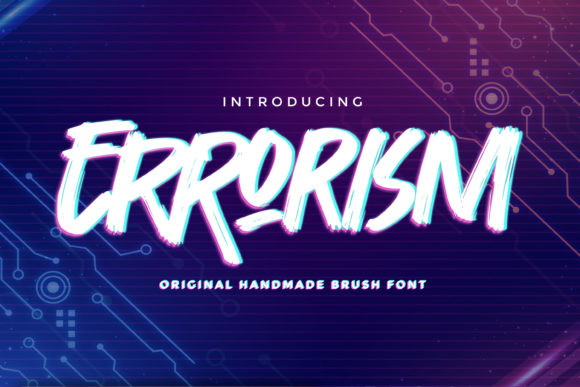
Errorism: A Handmade Brush Font for Crafters
As a maker who spends hours perfecting the cut of a vinyl decal or adjusting the kerning on a wedding invitation, I know that the right typeface can make or break a product. We are not just selling paper, wood, or fabric; we are selling an aesthetic and a feeling. This is why discovering Errorism felt like finding a missing piece in my design toolkit. It is an original handmade brush font, written casually and quickly, which gives it rough, authentic, and strong characters with a more natural look. For those of us creating physical goods, this authenticity is gold.
The Charm of Imperfection in Modern Typography
In a world saturated with perfectly geometric digital fonts, there is a growing demand for type that feels human. Errorism captures the energy of a marker hitting paper in real time. It does not try to be flawless. Instead, it embraces the slight variations in stroke width and edge texture that occur when you write by hand. This visual personality makes it an ideal choice for brands that want to appear approachable, organic, and artisanal.
When you use a script handwritten style like Errorism, you are immediately signaling to your customer that care and creativity went into the product. It bridges the gap between professional logo design and personal note-taking. Whether you are designing for a rustic farmhouse vibe or a modern minimalist boutique, the raw energy of this display font adds a layer of warmth that sterile computer-generated text simply cannot replicate.
Practical Applications for Handmade Products
The versatility of Errorism shines when applied to tangible items. Because the characters are strong and distinct, they hold up well in various manufacturing processes. Here is how I integrate this creative font into my shop’s offerings:
- Product Labels and Packaging: For candle makers, soap artisans, and bakery owners, Errorism is perfect for short labels. The thick strokes ensure readability even when printed small on kraft paper or clear vinyl. It gives artisanal goods a premium, small-batch feel.
- Wedding Stationery and Invitations: Couples often seek a balance between elegance and ease. Using Errorism for the names on a wedding welcome board or save-the-date cards adds a casual, celebratory tone. It pairs beautifully with formal details, softening the overall look.
- Home Decor and Signs: If you use a Cricut or Silhouette machine to cut wood or acrylic signs, this font is a dream. The connected letters and natural flow reduce the need for excessive weeding while maintaining a cohesive look. It works exceptionally well for phrases like "Welcome," "Gather," or family names.
- Apparel and Tote Bags: When screen printing or using heat transfer vinyl (HTV), the bold nature of Errorism ensures durability. It looks fantastic on tote bags, t-shirts, and aprons, especially for businesses that want to highlight a slogan or a brand name prominently.
Readability and Technical Considerations
While the rough edges of Errorism are its biggest strength, they require thoughtful application. As a handwritten font, it is best suited for short phrases, titles, and decorative wording rather than long paragraphs of body text. The casual writing style means that letter spacing can vary, so always check your kerning before finalizing a design.
For those using cutting machines, preview your design at actual size. Because the font has a natural, quick-written look, some thinner connections between letters might need slight adjustments in your software to ensure they cut cleanly without breaking. However, the overall strength of the characters usually minimizes this issue. When creating digital printables or SVG-style designs, ensure you are using high-resolution files to preserve the textured edges that give the font its character.
Strategic Font Pairing for Brand Identity
To maximize the impact of Errorism, pairing it with complementary typefaces is essential. Since Errorism is expressive and busy, it needs a calm partner. I frequently pair it with a clean sans serif font for product descriptions or secondary information. This contrast creates a hierarchy that guides the customer’s eye: the script draws attention, and the sans serif provides clarity.
Alternatively, for a more vintage or editorial look, you can pair this premium font with a traditional serif font. This combination works well for book covers, magazine-style layouts, or high-end boutique tags. The key is to let Errorism take the spotlight as the primary voice of your brand identity, while the supporting font handles the functional communication. Avoid pairing it with other decorative or script fonts, as this can create visual clutter and reduce readability.
Enhancing Perceived Value and Customer Connection
Using a distinctive typeface like Errorism affects more than just aesthetics; it influences perceived quality. Customers often associate handmade, imperfect typography with higher value and exclusivity. It suggests that the product was crafted with intention, not mass-produced. This emotional appeal is crucial for standing out in crowded marketplaces like Etsy or local craft fairs.
Incorporating Errorism into your creative process is more than just choosing a pretty font. It is a strategic decision to embrace authenticity, enhance readability, and connect emotionally with your customers. By understanding its strengths and limitations, you can leverage this powerful tool to elevate your handmade business and create products that truly resonate.